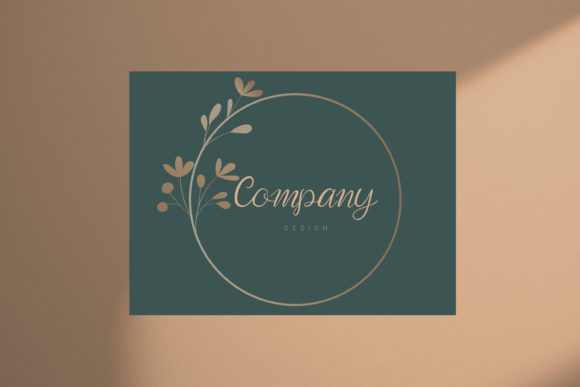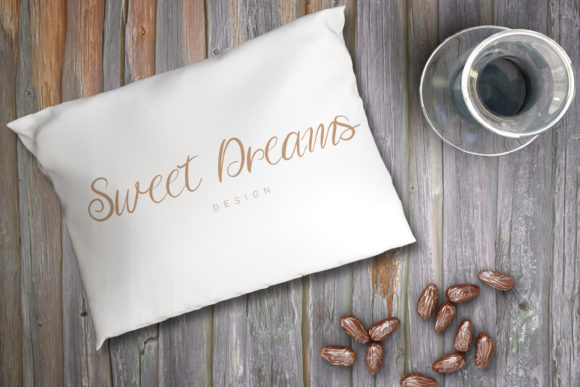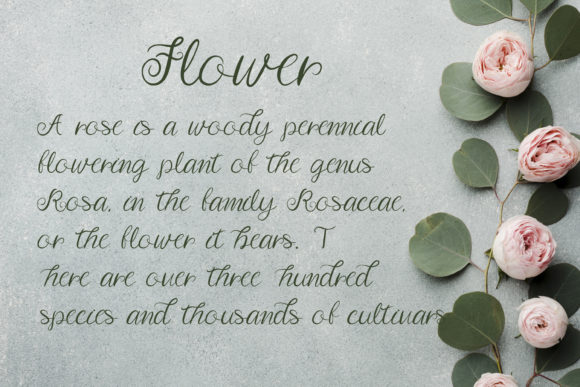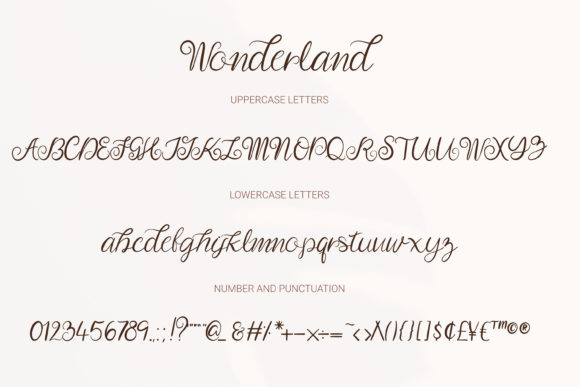
Wonderland Font
About Wonderland Font
Wonderland is a beautiful handwritten font. Whether you’re looking for fonts for Instagram or calligraphy scripts for DIY projects, Wonderland will turn any creative idea into a true piece of art!